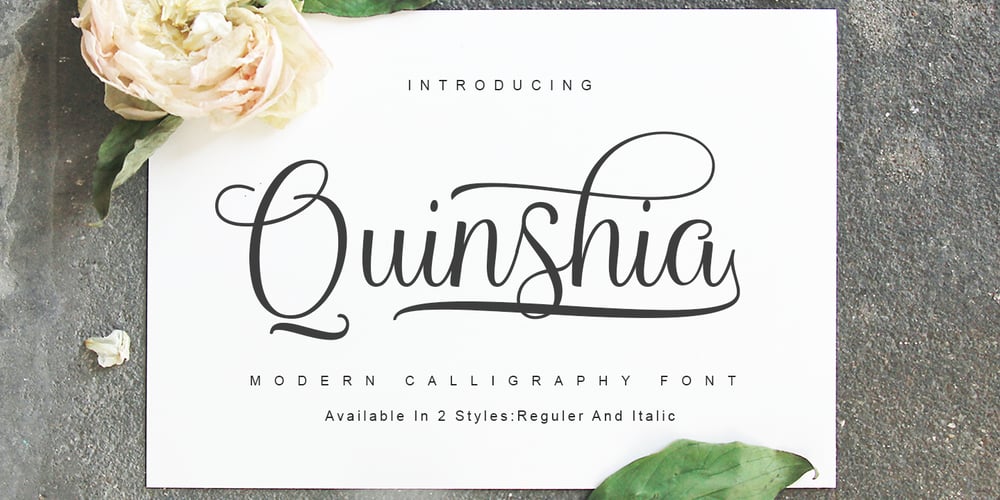
Quinshia Script Font Family was designed by Kurniadi Saputra and published by Cooldesignlab. Quinshia Script contains 2 styles and family package options. Quinshai Script a new fresh & modern script with a handmade calligraphy style, decorative characters and a dancing baseline! So beautiful on invitation like greeting cards, branding materials, business cards, quotes, posters, and more!!Quinshai Script including alternate glyph and beautiful swirl in a font including stylistic sets, Ligatures etc. The Open Type features can be accessed by using Open Type savvy programs such as Adobe Illustrator CS, Adobe Indesign & CorelDraw X6-X7 and Microsoft Word. And this Font has given PUA unicode (specially coded fonts). so that all the alternate characters can easily be accessed in full by a craftsman or designer.Thanks and happy designing 🙂